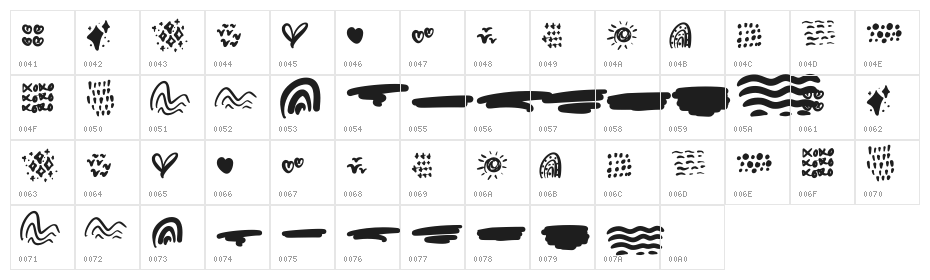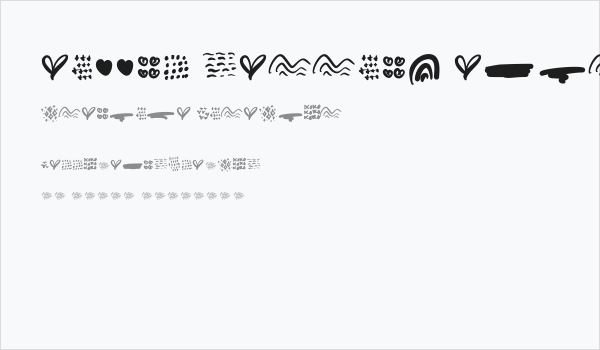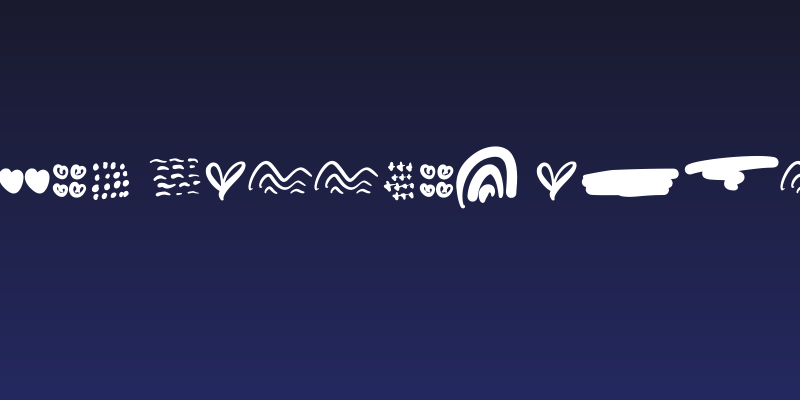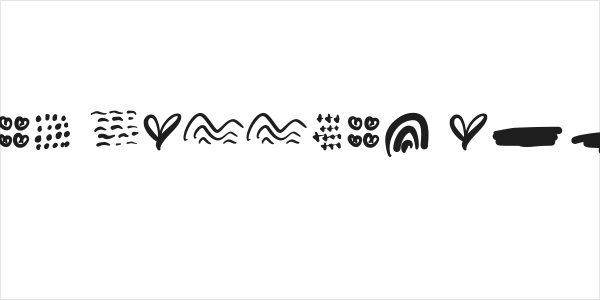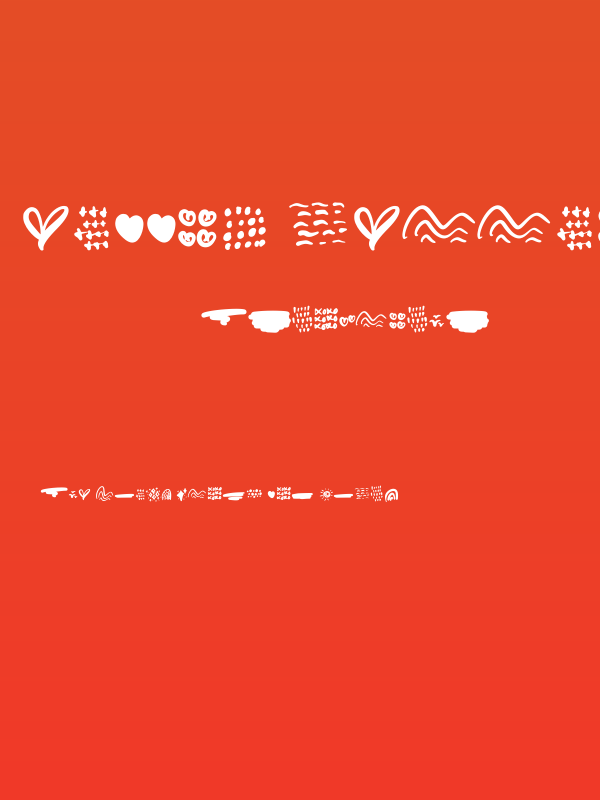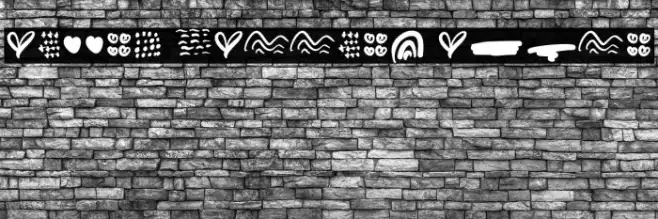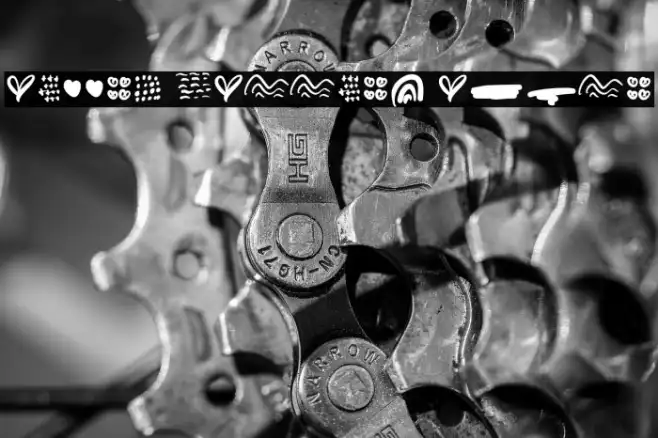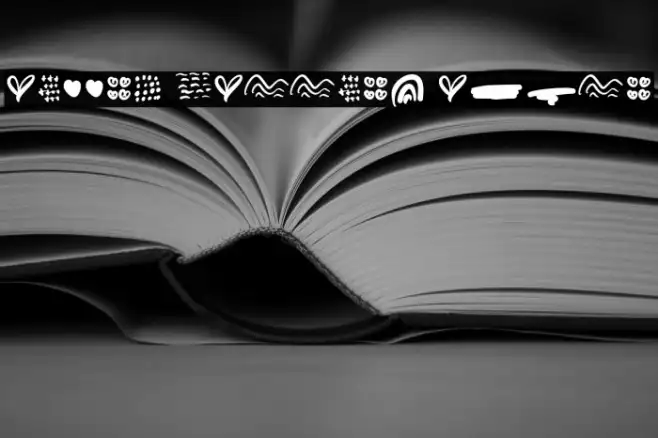
Eiffal Merrias Extra Font
Eiffal Merrias Extra Description
A playful, hand-drawn decorative set of doodle icons and borders featuring hearts, diamonds, abstract shapes, rainbows, sun, and wavy lines. The style is informal and whimsical, with bold, irregular strokes and a casual, artistic feel.
| Overall Style | Decorative, Playful, Hand-drawn |
| Use Case | Borders, Decorative elements, Illustrations, Craft projects |
| Proposed Projects | Children's books, greeting cards, scrapbooking, social media graphics, playful branding, invitations. |